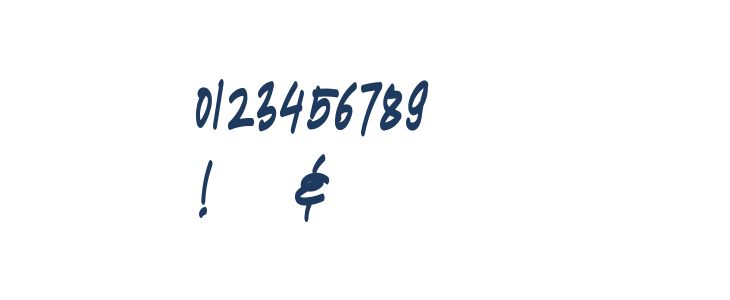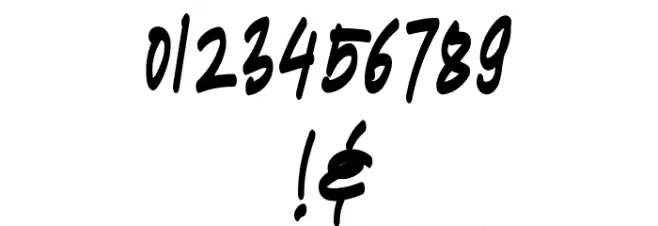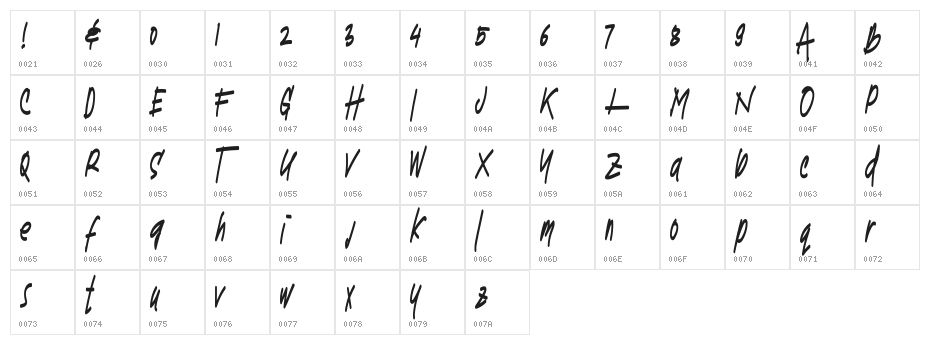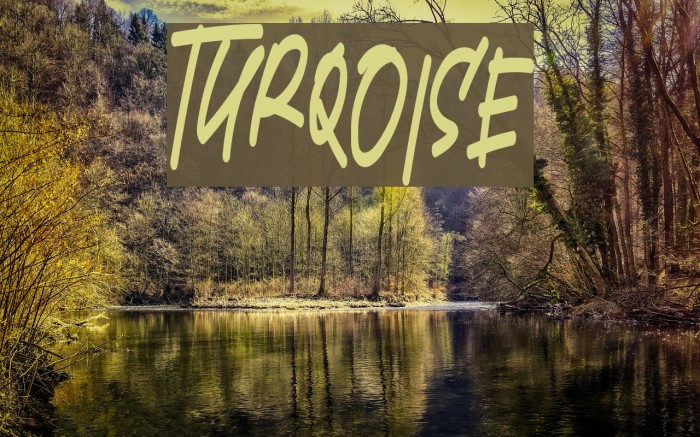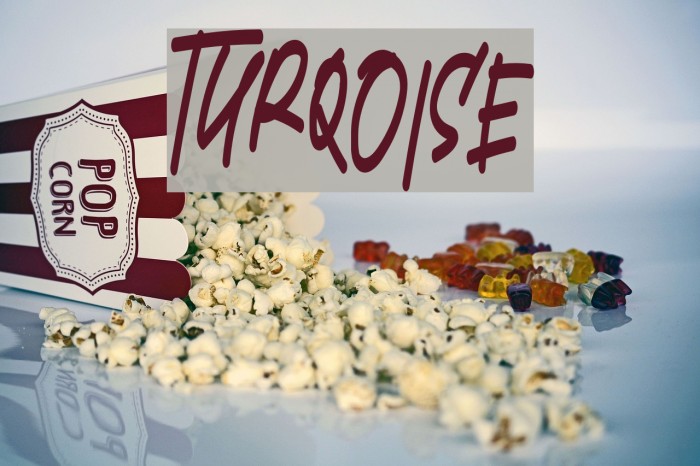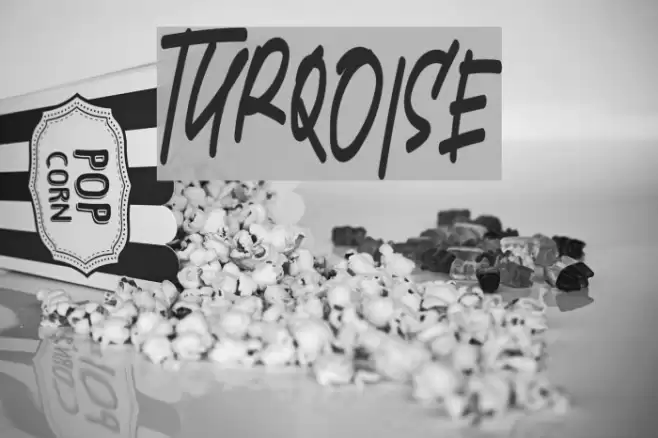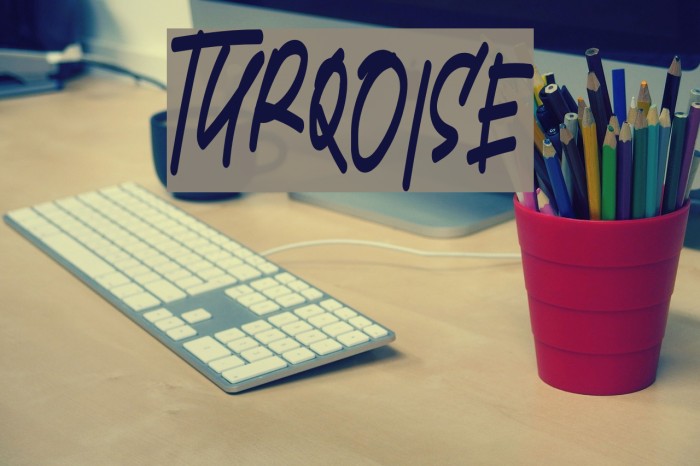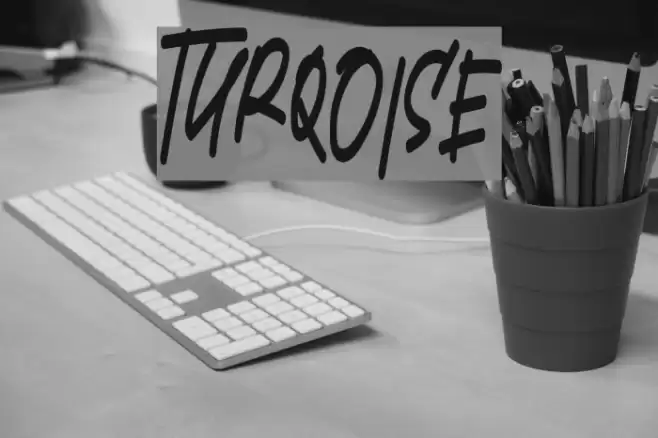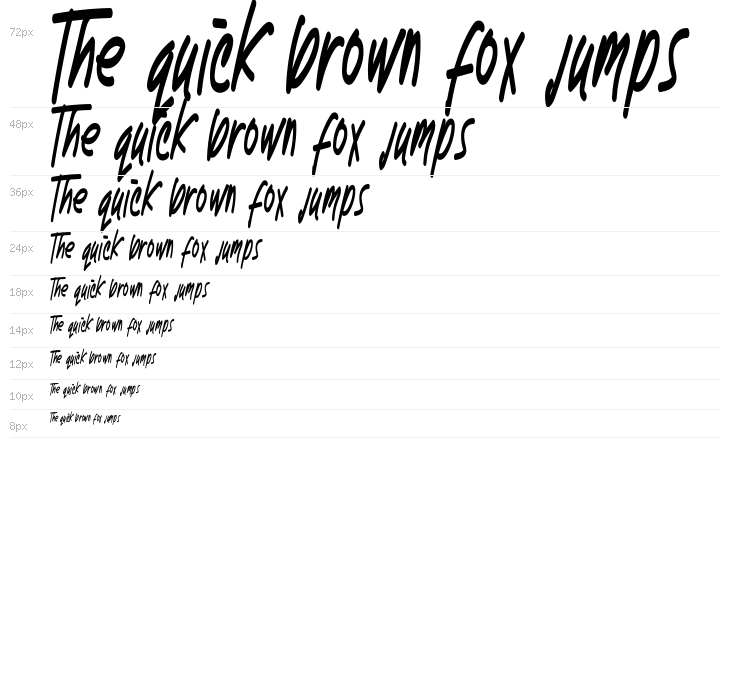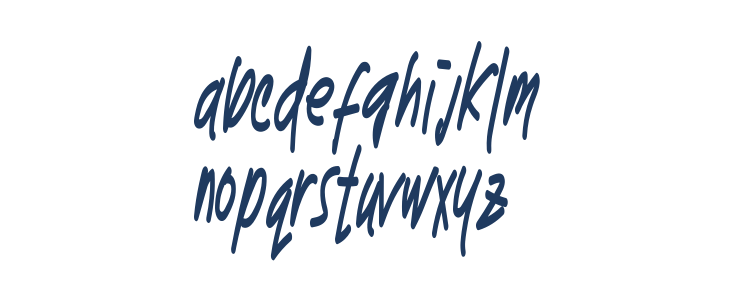
TURQOISE Font
TURQOISE Description
This font exudes a dynamic and energetic style, characterized by its handwritten appearance. The letters are bold and slightly slanted, giving a sense of movement and informality. The strokes are thick and consistent, with a casual yet deliberate flow that suggests a personal touch. The uppercase and lowercase letters maintain a cohesive look, while the numbers and special characters integrate seamlessly into the overall design. This font's playful and expressive nature makes it ideal for projects that require a personal or creative flair.
| Overall Style | Casual, Creative |
| Proposed Projects | Ideal for creative projects such as greeting cards, posters, and social media graphics where a personal touch is desired. |